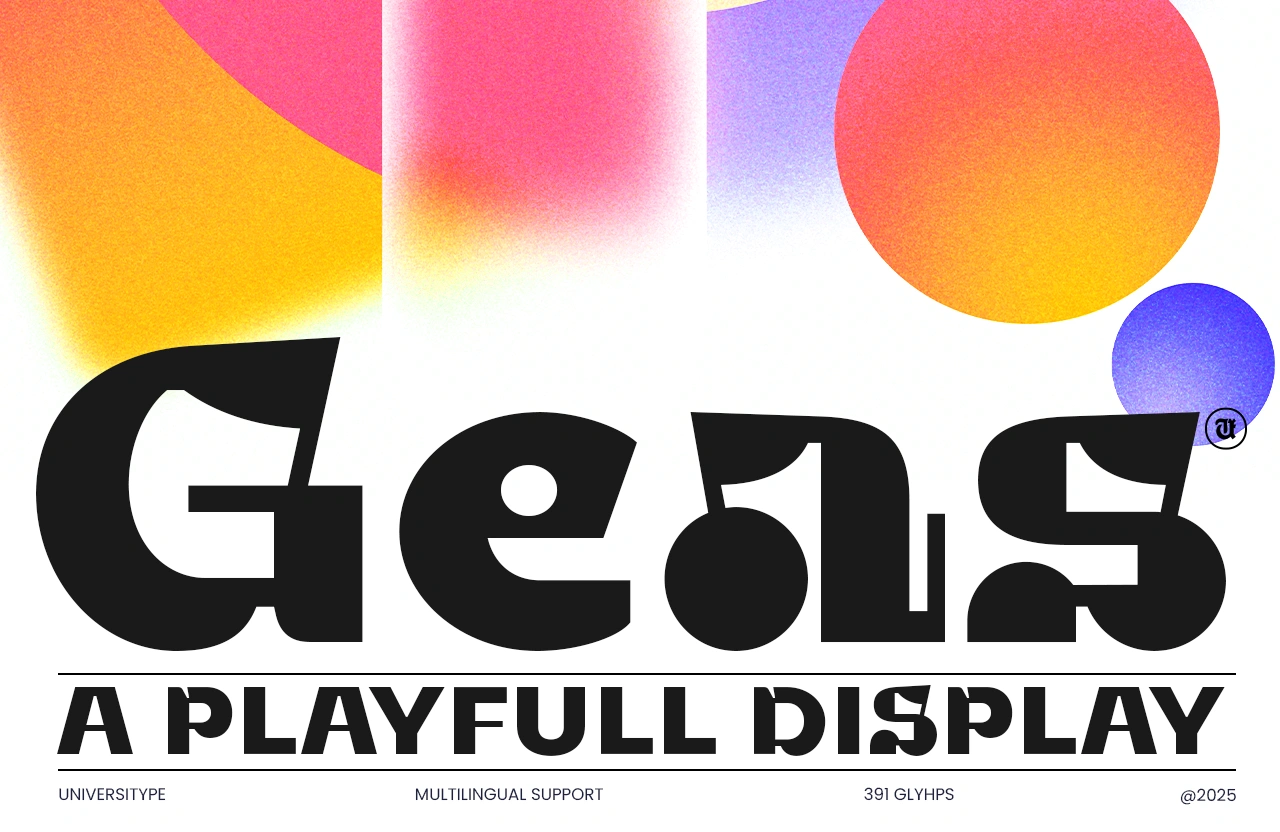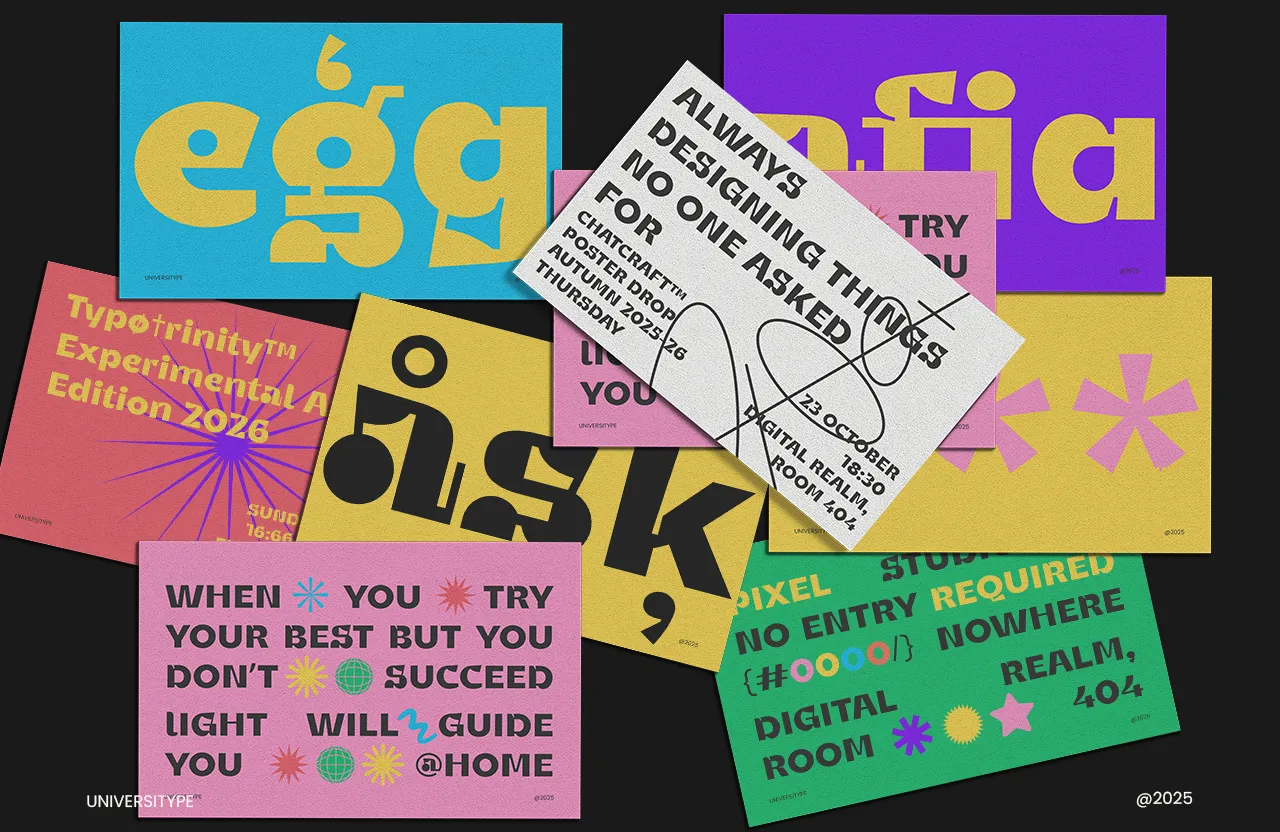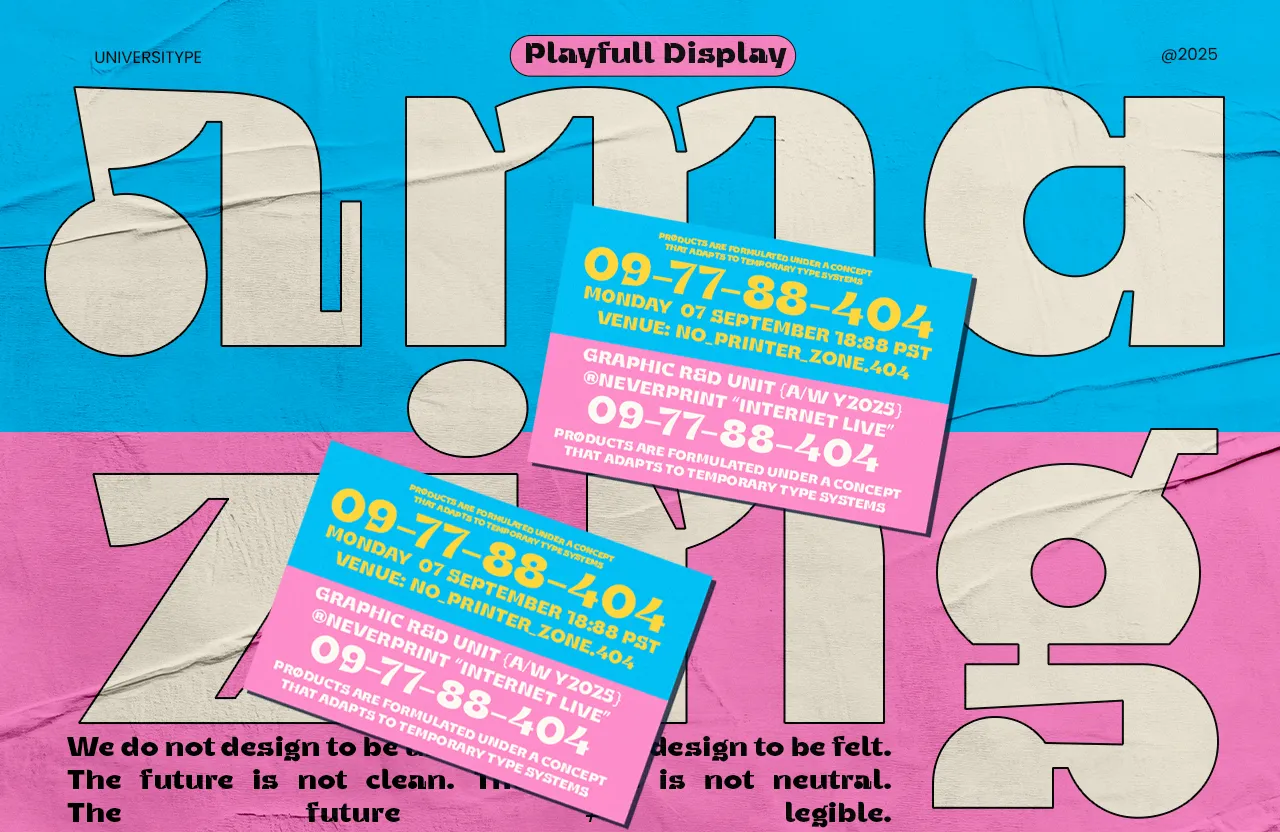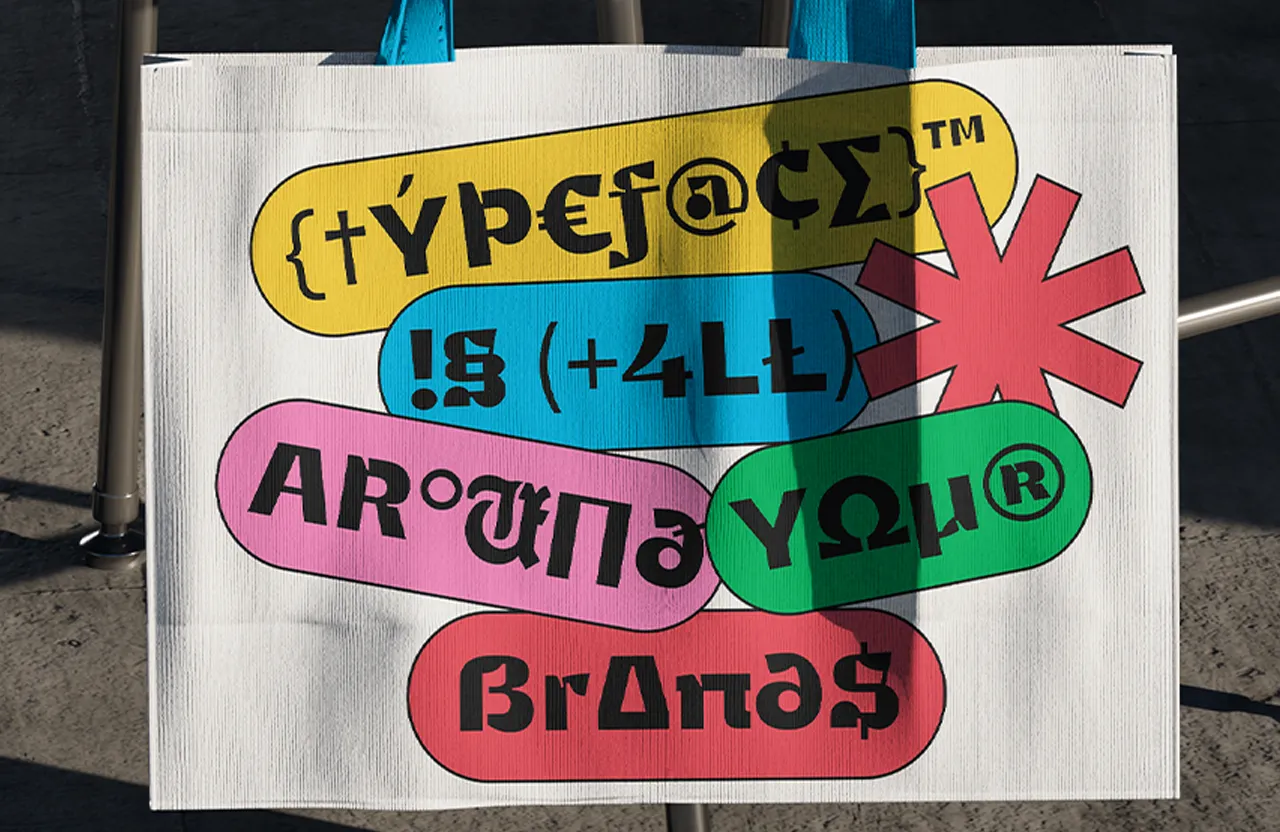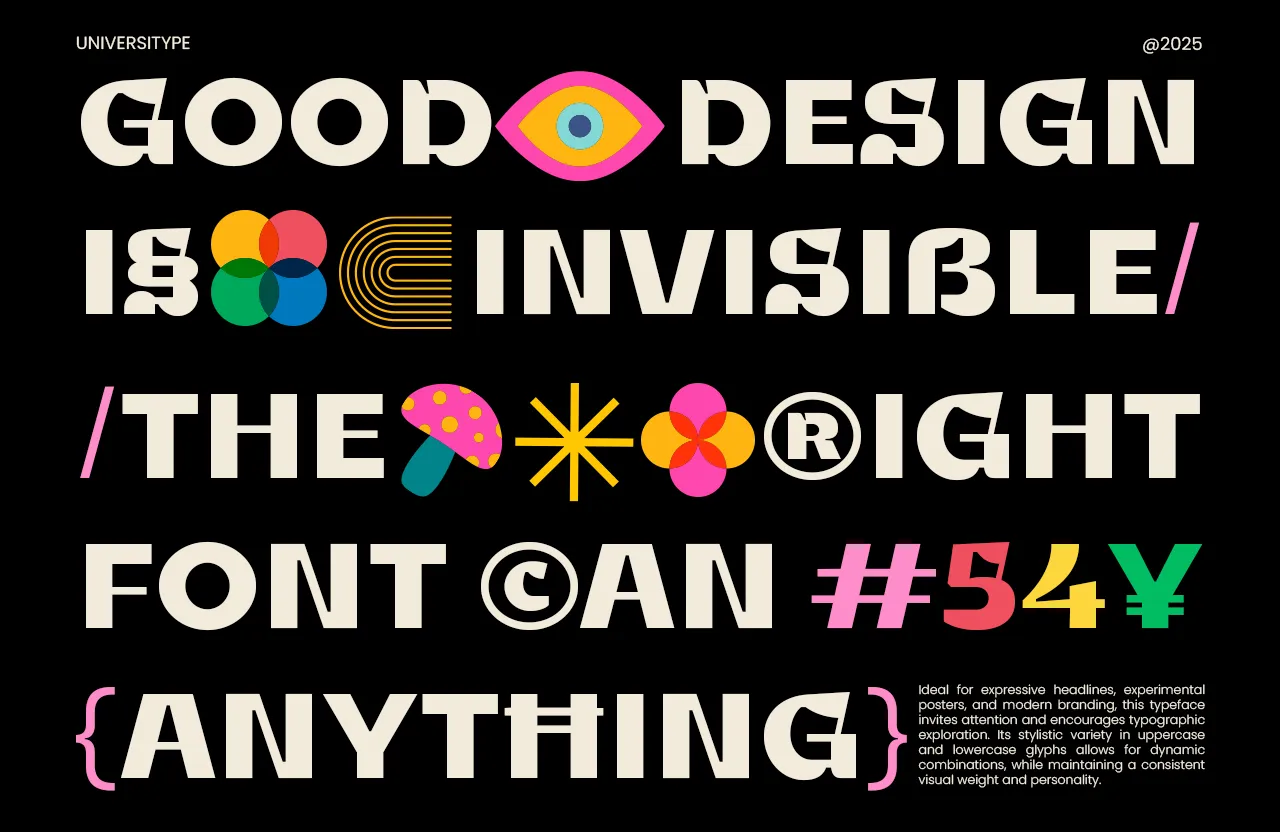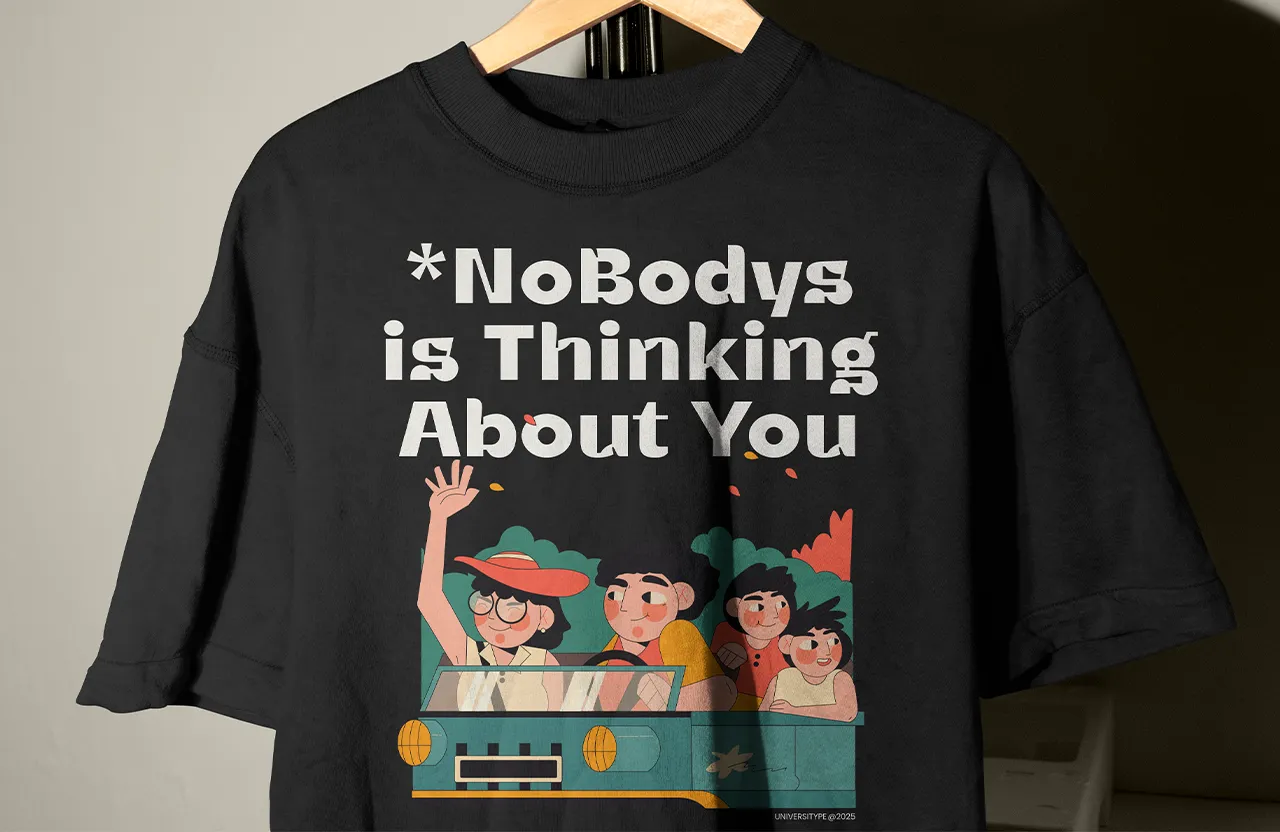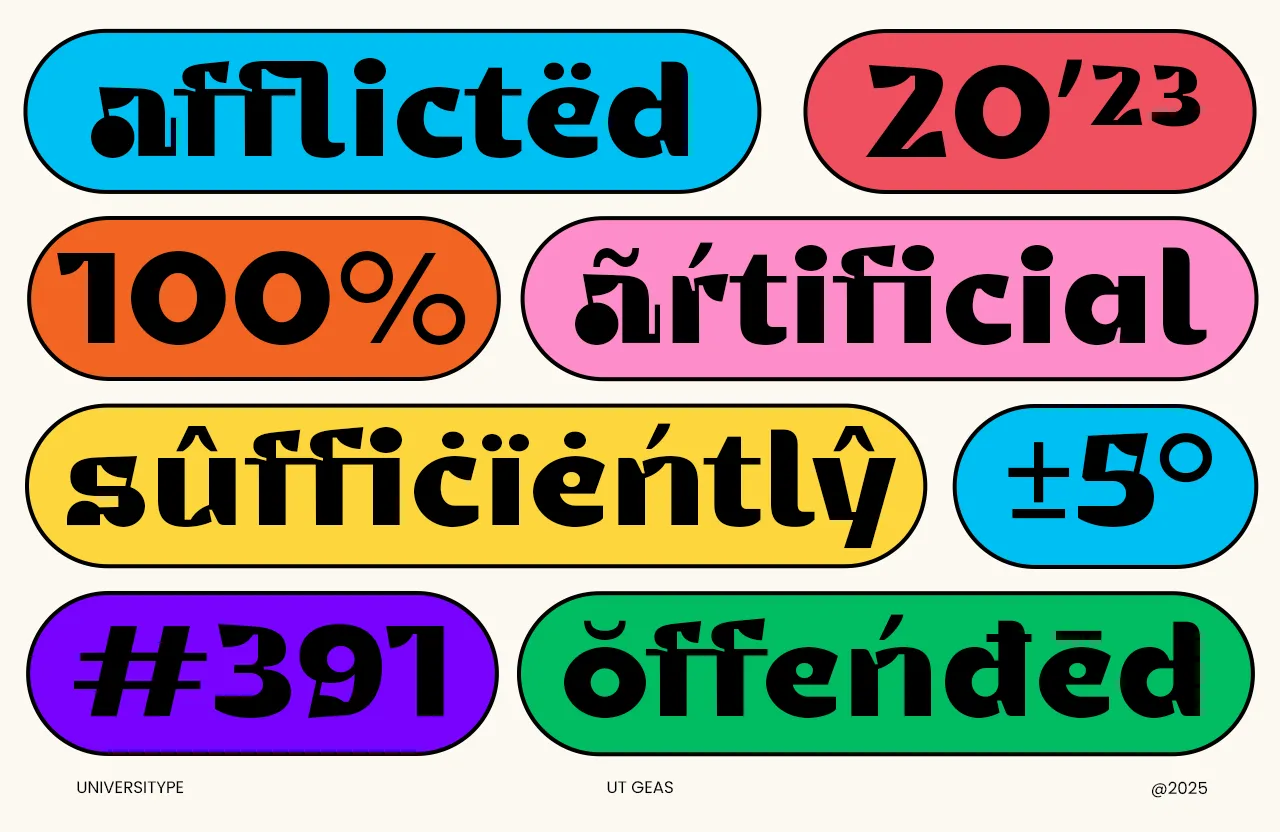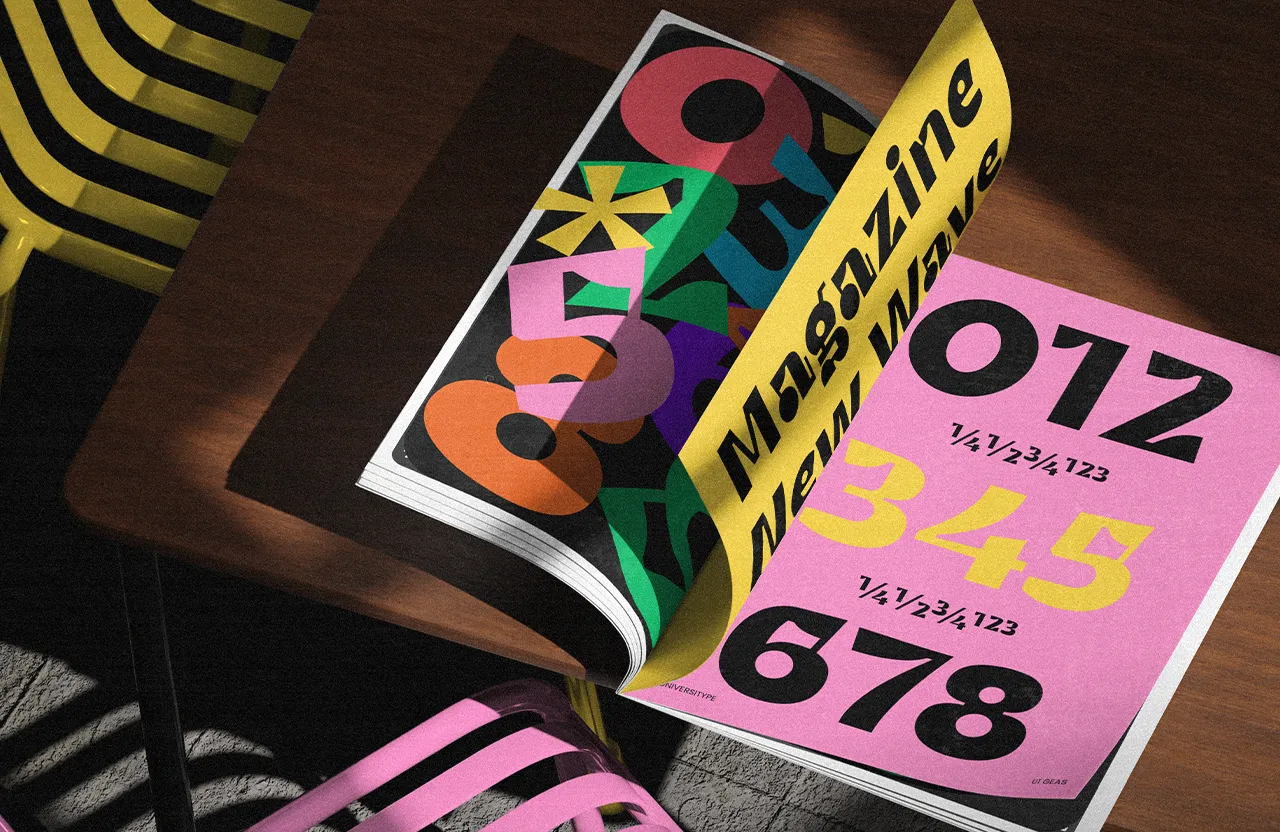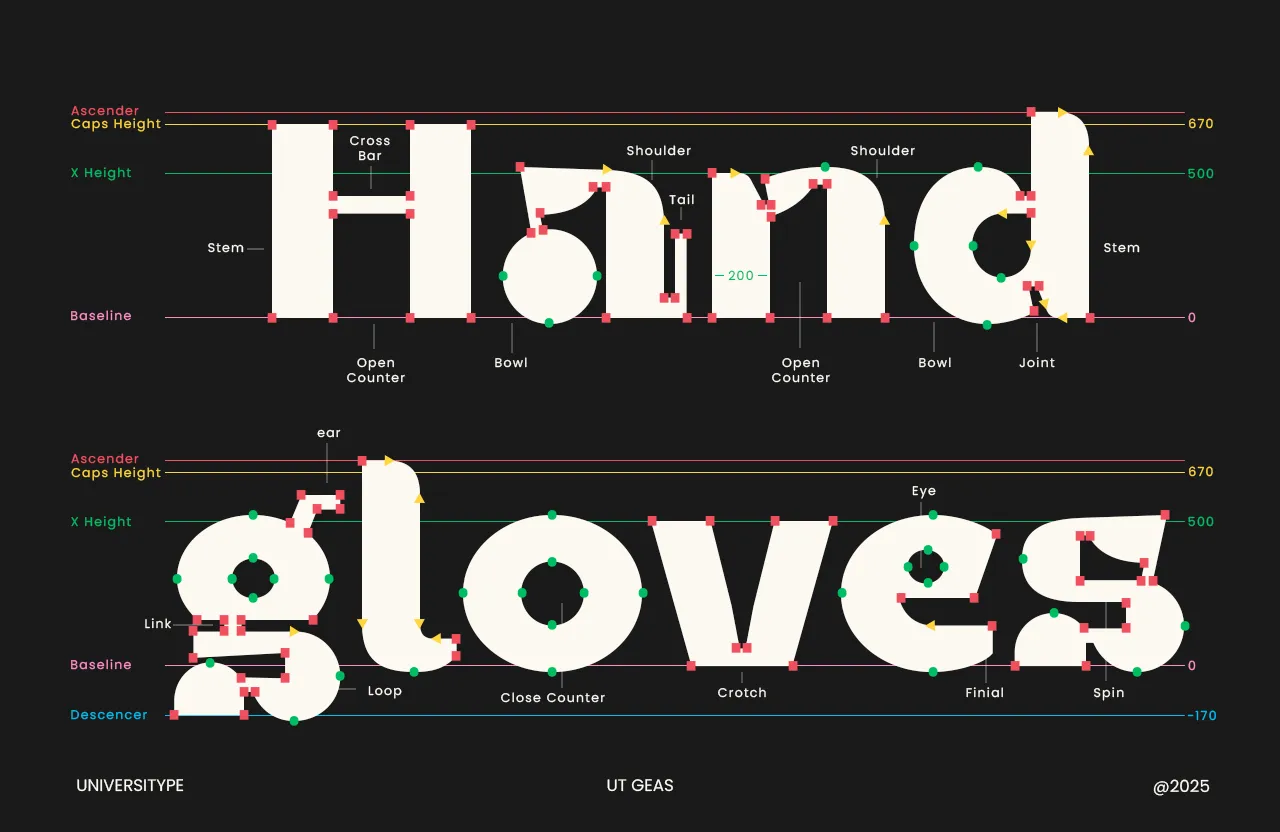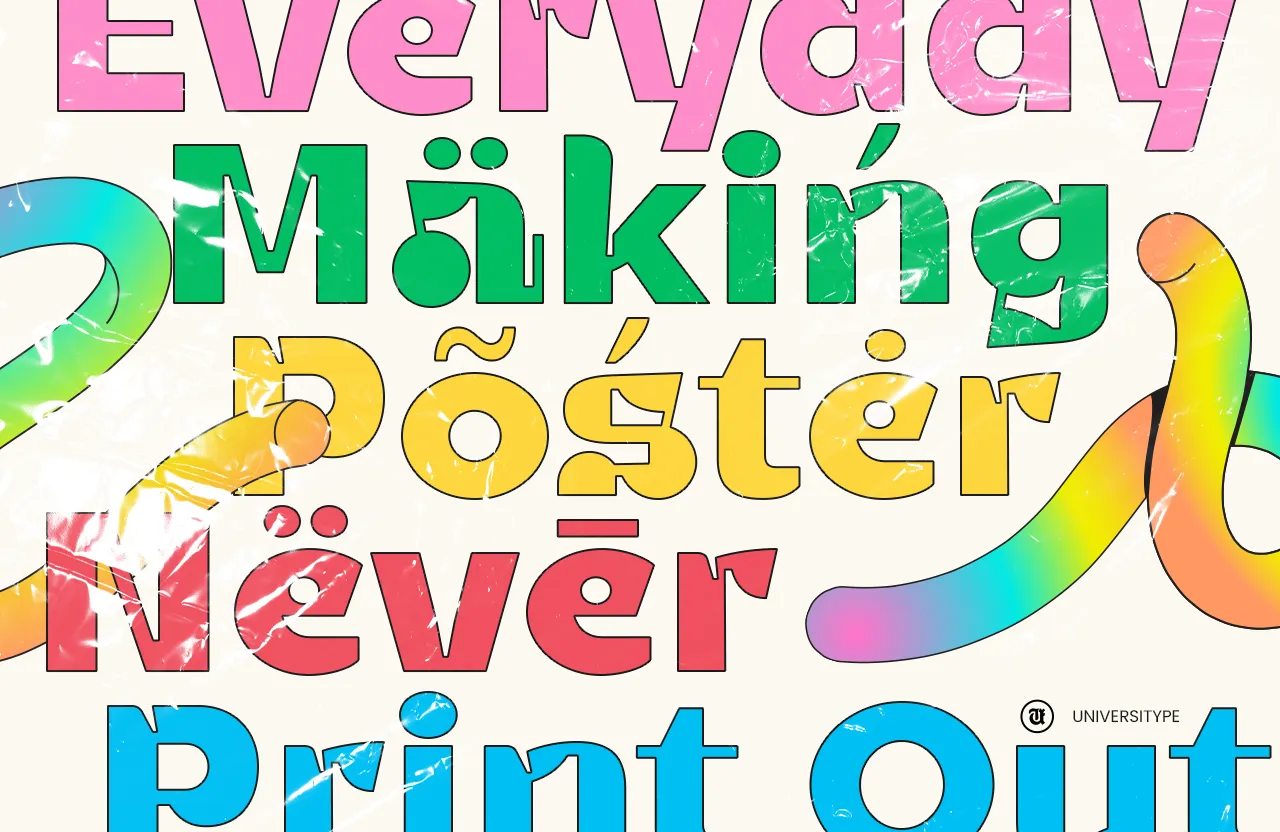
UT Geas Display
UT Geas isn’t just another font. It bounces, wiggles, and grins its way across the page. Bold yet friendly, retro yet refreshingly modern—it’s the kind of type that makes you pause, smile, and say, “Okay, that’s fun.”
UT Geas – A Typeface That Can’t Sit Still
UT Geas isn’t just another font. It bounces, wiggles, and grins its way across the page. Bold yet friendly, retro yet refreshingly modern—it’s the kind of type that makes you pause, smile, and say, “Okay, that’s fun.”
Designed to bring energy to your layouts and joy to your readers, UT Geas is your creative sidekick for moments that need a bit more magic. Whether you’re crafting a loud-and-proud poster, a cheeky logo, or an Instagram post with personality, this font doesn’t just deliver a message—it throws a party around it.
Who’s It For?
UT Geas is for the rule-breakers, color-lovers, layout-tinkerers. It’s for designers who push boundaries, marketers who crave attention, and creatives who treat type like paint on a canvas. If you believe your message deserves more than “just text,” you’ve found your match.
Why You’ll Love It:
• Built to Be Seen
Loud enough for headlines, clear enough for copy—UT Geas is as readable as it is radiant.
• Speaks Many Languages
Your ideas shouldn’t be limited by borders. With multilingual support, UT Geas makes sure your voice carries, wherever it goes.
• Brimming with Personality
With dynamic shapes, charming curves, and a sprinkle of mischief, every character feels handpicked for fun.
• Plug-and-Play Versatility
Use it for packaging, posters, logos, stories, thumbnails—UT Geas adapts like a font-shaped chameleon.
The Spark Behind the Style
UT Geas is rooted in two powerful forces: the bold spirit of retro lettering and the electric pulse of street art. It’s nostalgia and rebellion rolled into one—a love letter to creativity that doesn’t take itself too seriously.
Use It When You Want To:
• Build a Brand With Bite: Give your identity a voice that’s impossible to ignore.
• Stop the Scroll: Design social posts that feel more like artwork than ads.
• Package With Playfulness: Make unboxing feel like an experience.
• Market Loudly, Clearly: From flyers to billboards, UT Geas demands attention without shouting.
• Features: Multilingual support, ligatures, stylistic alternates
• Bonus: Plenty of ways to customize and make it truly yours
UT Geas is the kind of font that turns ideas into experiences. The kind you’ll reach for when you want your work to feel fresh, fearless, and full of life.